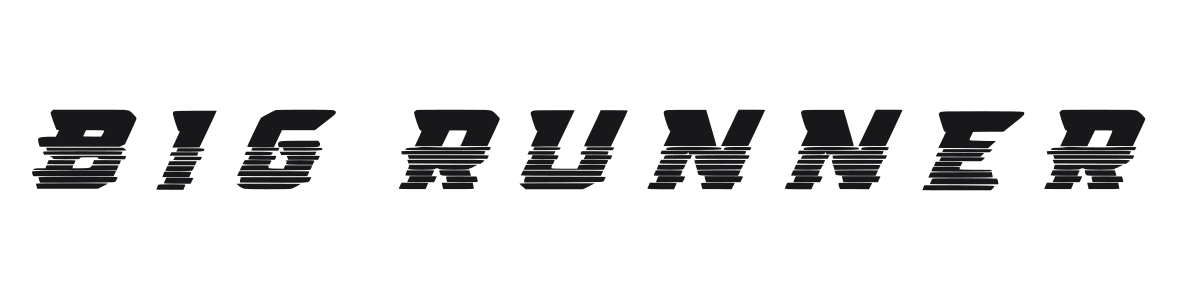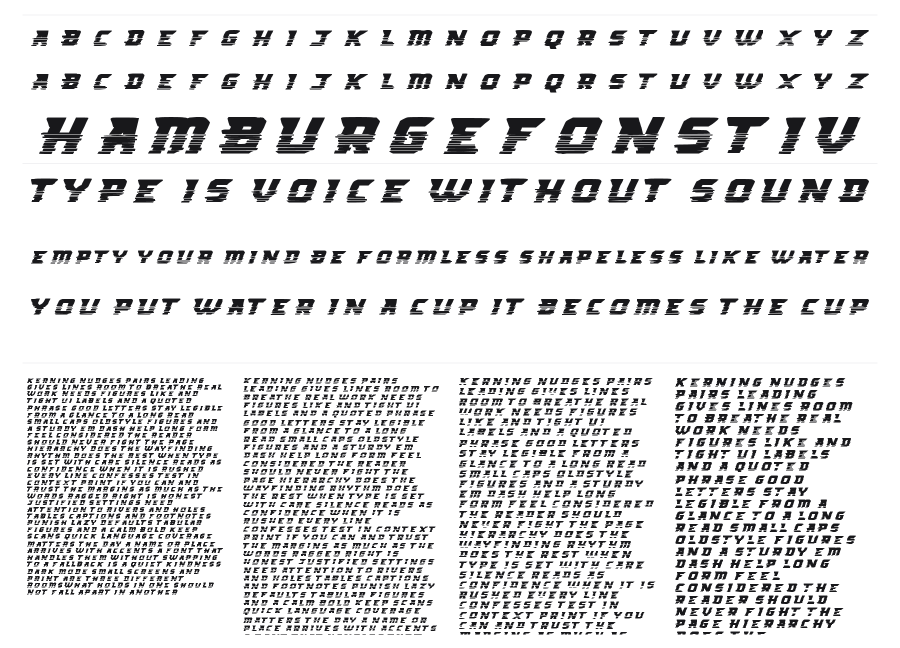
Big Runner
Big Runner is a bold italic display font built around a horizontal speed-line effect that slices each character into layered strips, evoking motion blur and raw velocity. The heavy, condensed letterforms lean hard into an aggressive forward angle that reads instantly as fast and kinetic. It belongs on posters, game titles, and anything that needs urgency.